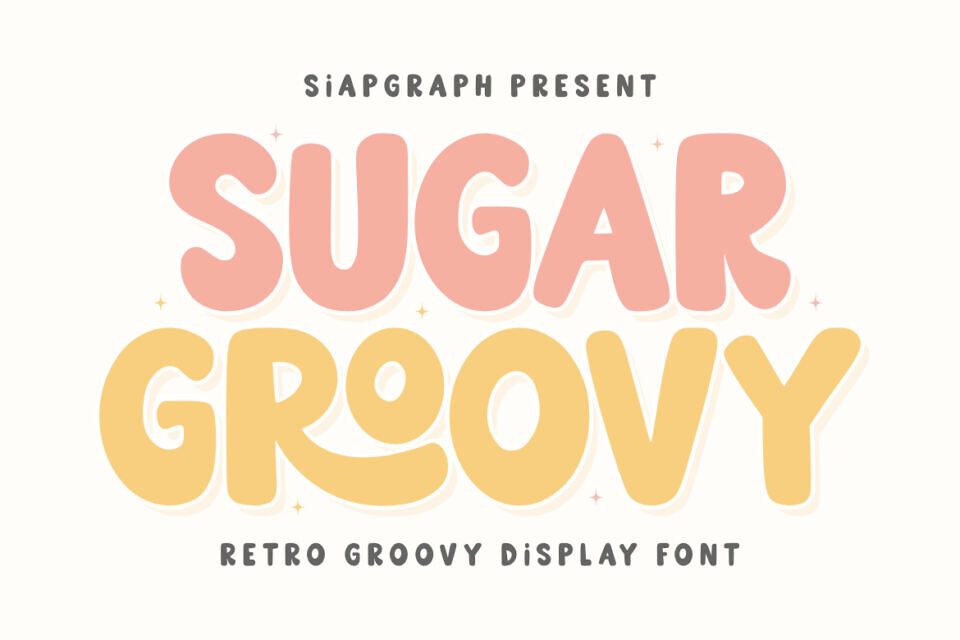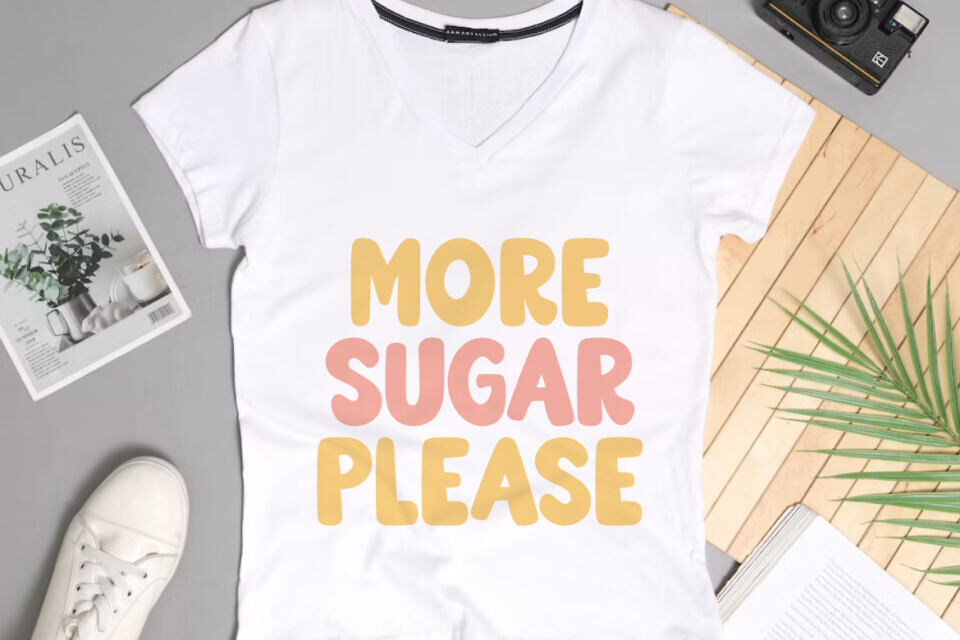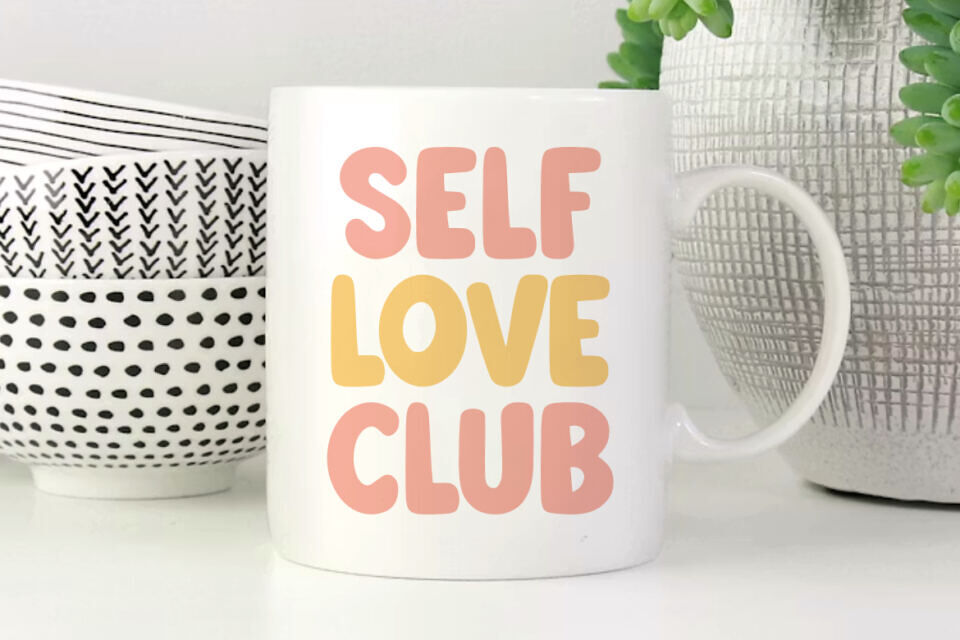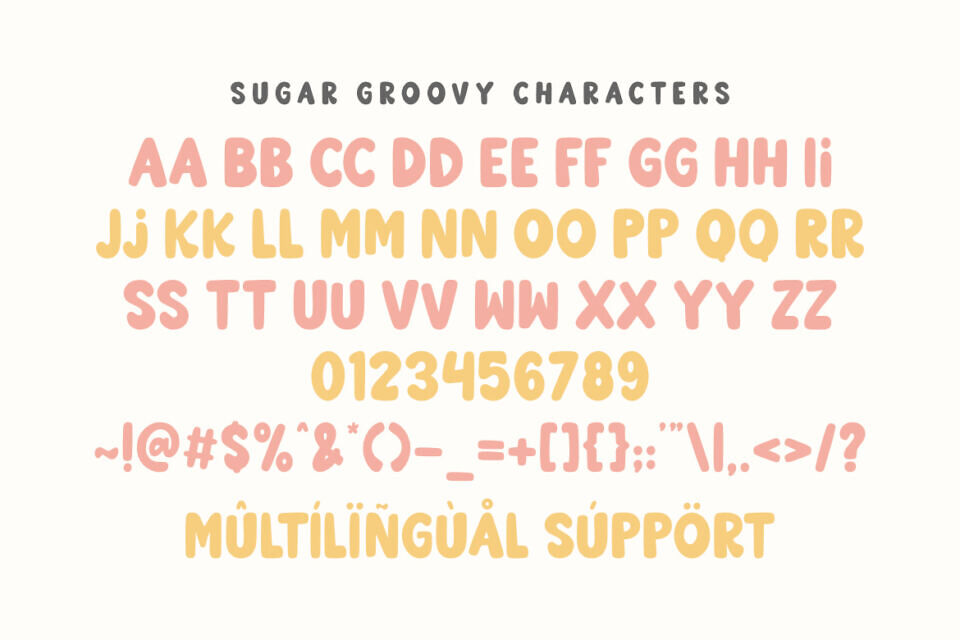
Sugar Groovy is a retro groovy display font that captures the vibrant, carefree energy of the 70s with a modern, sweet twist. Featuring bold, flowing letterforms and organic curves, this typeface brings a sense of nostalgia and playfulness to any creative design. Its clean and chunky construction is specifically optimized for the crafting community, ensuring a smooth and frustration-free experience for vinyl cutting, sublimation, and high-quality digital printing.
Perfect for: creating high-impact SVG cut files, custom retro-themed t-shirts, vibrant vinyl stickers, personalized mugs, playful event branding, nursery wall art, and trendy social media graphics.